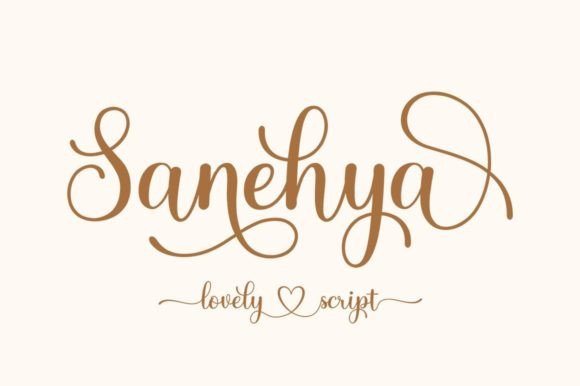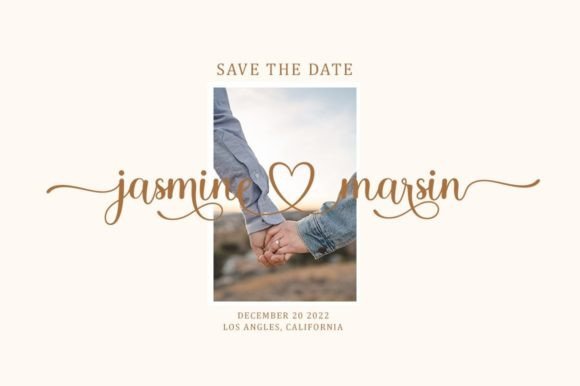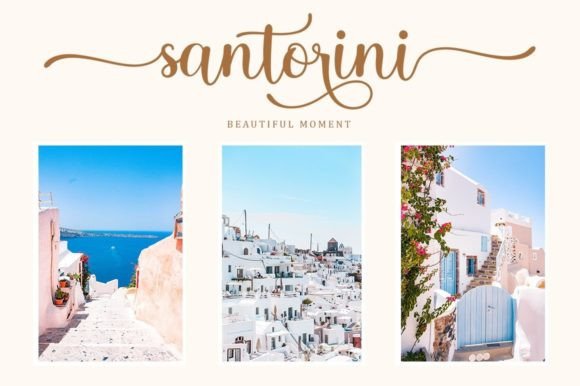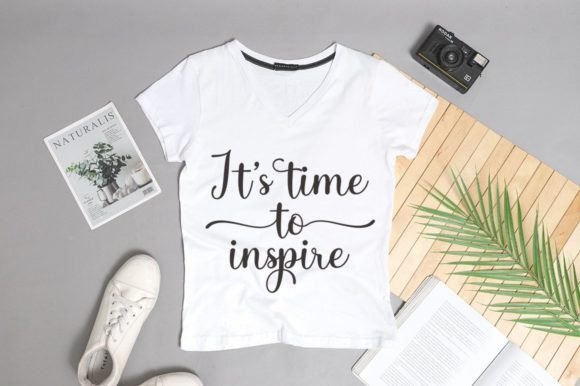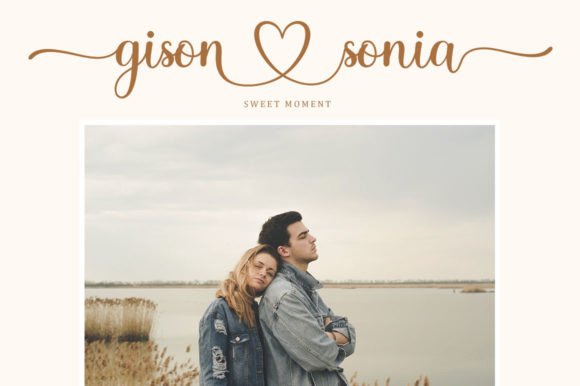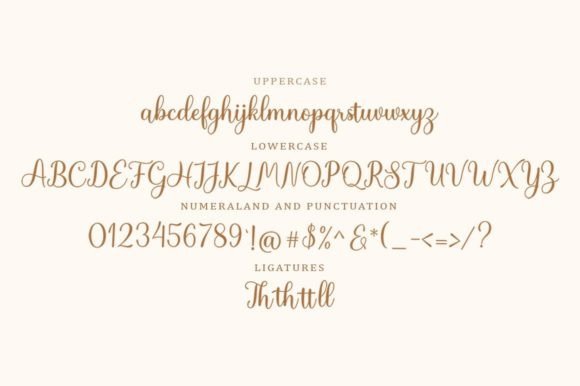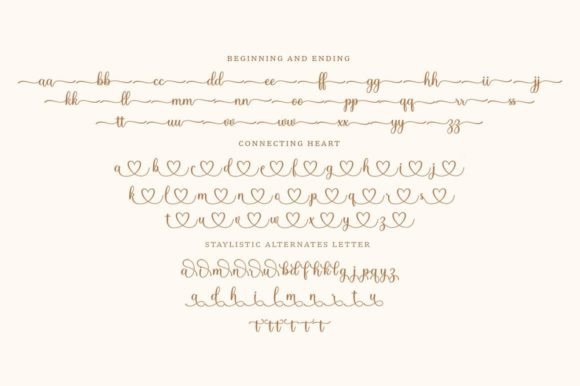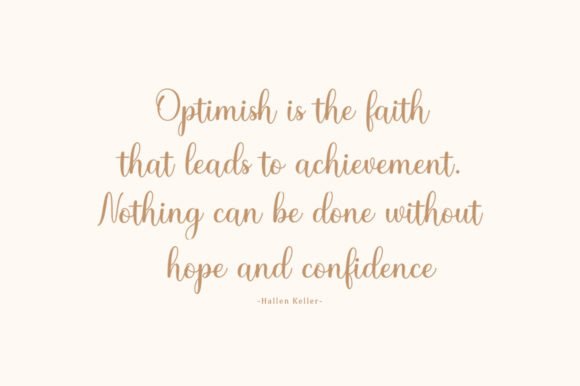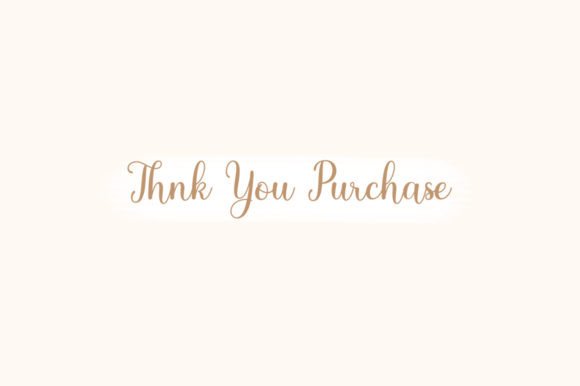
Sanehya Font
About Sanehya Font
“Sanehya: Where Uniqueness Meets Masterful Design in Handwritten Typography
Introducing Sanehya, an incredibly unique handwritten font that stands as a masterpiece of design. Crafted with meticulous attention to detail, this font is not just a typeface; it’s an artistic creation that elevates your creative ideas to unparalleled heights. With its distinct and captivating style, Sanehya has the potential to become your true favorite, adding a touch of creativity and elegance to every project you undertake. Whether you’re working on branding, invitations, quotes, or any creative endeavor, Sanehya is your ticket to making a lasting impression.
The allure of Sanehya lies in its unparalleled uniqueness, where each letter is masterfully designed to create a harmonious blend of style and creativity. Its distinctive strokes and elegant curves give it a personality that stands out in the world of typography, making it instantly recognizable and memorable. Imagine your branding materials adorned with Sanehya, its unique letterforms capturing the essence of your brand with unmatched elegance. Picture your invitations featuring this font, setting the stage for an event that exudes creativity and sophistication. With Sanehya, your creative ideas reach their highest level, leaving a lasting impression on anyone who encounters them.
One of Sanehya’s standout features is its versatility. Its unique handwritten style allows it to adapt seamlessly to a wide range of applications, from logos and branding to invitations, quotes, and much more. Whether you’re designing social media graphics or crafting elegant wedding invitations, Sanehya enhances your designs with its distinct charm, making them visually captivating and emotionally resonant.
Moreover, Sanehya is more than just a font; it’s a source of inspiration and creativity. Its unique design resonates with individuals who appreciate the beauty of handwritten typography, making it a favorite among designers and enthusiasts seeking a font that exudes sophistication and originality. Its presence adds a layer of depth and artistic flair to your designs, making them visually captivating and unforgettable.
In a world where creativity knows no bounds, Sanehya helps you make a statement. It speaks the language of uniqueness and masterful design, resonating with those who appreciate the beauty of artistic craftsmanship. Whether you’re designing for branding, special events, or any creative endeavor, Sanehya becomes your trusted companion, guiding you toward design excellence.
So, why settle for ordinary when you can embrace the extraordinary with Sanehya? Let this incredibly unique handwritten font be the muse for your creative expressions, and watch as your projects come to life with unmatched elegance, creativity, and originality. Let your creativity flow, and let Sanehya be the brushstroke that paints your ideas into visually captivating masterpieces, leaving a lasting impression on the hearts of your audience. Access all the incredible glyphs and swashes with ease, and let your creativity soar to new heights with Sanehya.”